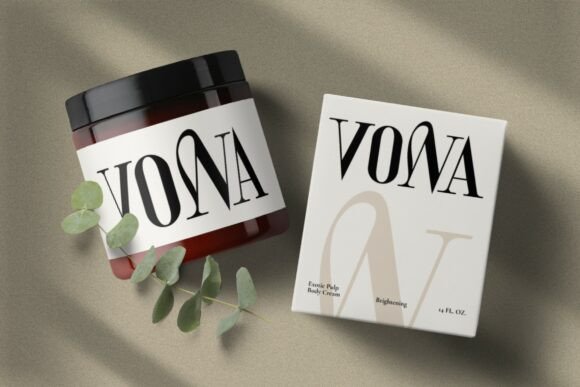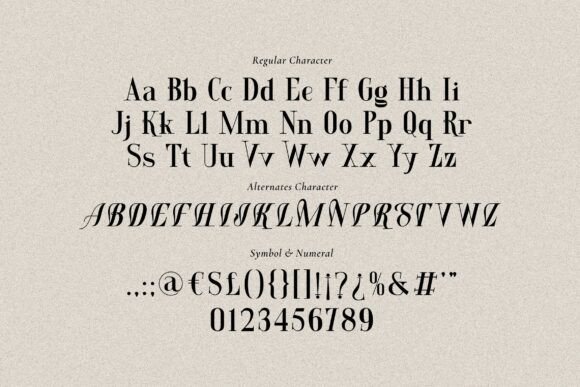
Gomied Aesthetic Font
Gomied Aesthetic is a serif font that seamlessly blends beauty and a feminine touch, infusing a sense of class and contemporary sophistication. Its graceful lines and modern aesthetic make it the perfect choice for projects seeking a balance of elegance and modernity and smooth curves every lettering a can embodies charm in, making your work look stunning and attractive.
A versatile font that works in both uppercase and lowercase sizes, suitable for a wide variety of projects such as a display font for headings, invitations, branding, book covers, magazine layouts, wedding, product packaging, product mockup, posters, labels, editorials, art deco, and any type of advertising purpose.